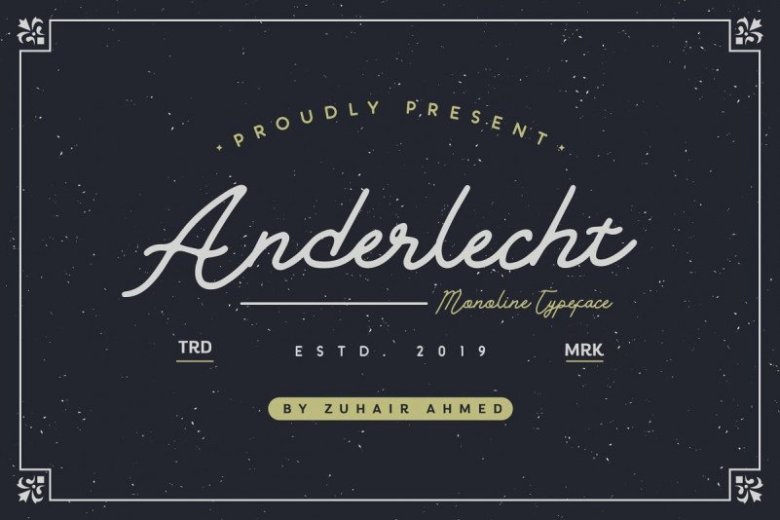
Anderlecht Monoline Font
A new monoline typeface. Presenting Anderlecht Font. Having that handmade feel and personal touch certainly gives it a hint of authenticity; perfect for any of your upcoming projects. Don’t miss out! Anderlecht font is monoline typeface. Anderlecht is easily to use for your work. This is a beautiful mono-line font, perfect for logo design, branding, clothing design, signage, posters, wedding invitations and so much more!